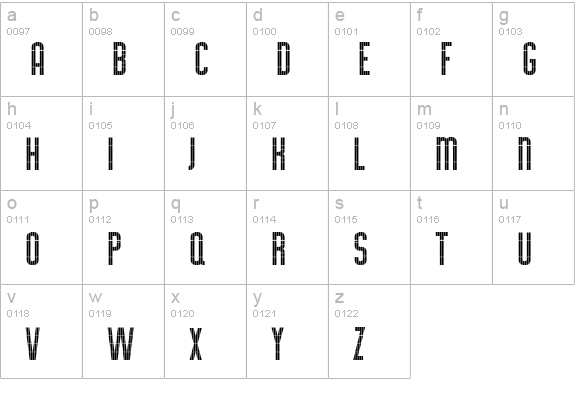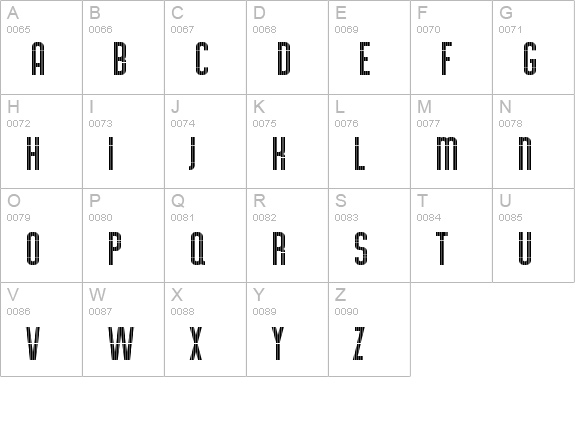
CgSectionBdCd Font Details
CgSectionBdCd font is a modern and elegant typeface that exudes sophistication and style. Its sleek lines and sharp edges make it perfect for a variety of design projects, from branding to editorial layouts. This font offers a unique blend of professionalism and creativity, making it a versatile choice for both digital and print applications. Best of all, CgSectionBdCd font is available for free download at FontsMarket.com. Whether you're a seasoned designer looking to refresh your font collection or a newcomer in need of a high-quality typeface, this font is the perfect choice. With its clean and contemporary aesthetic, CgSectionBdCd font is sure to elevate your designs and leave a lasting impression on your audience. Download it today and see the difference it can make in your projects!